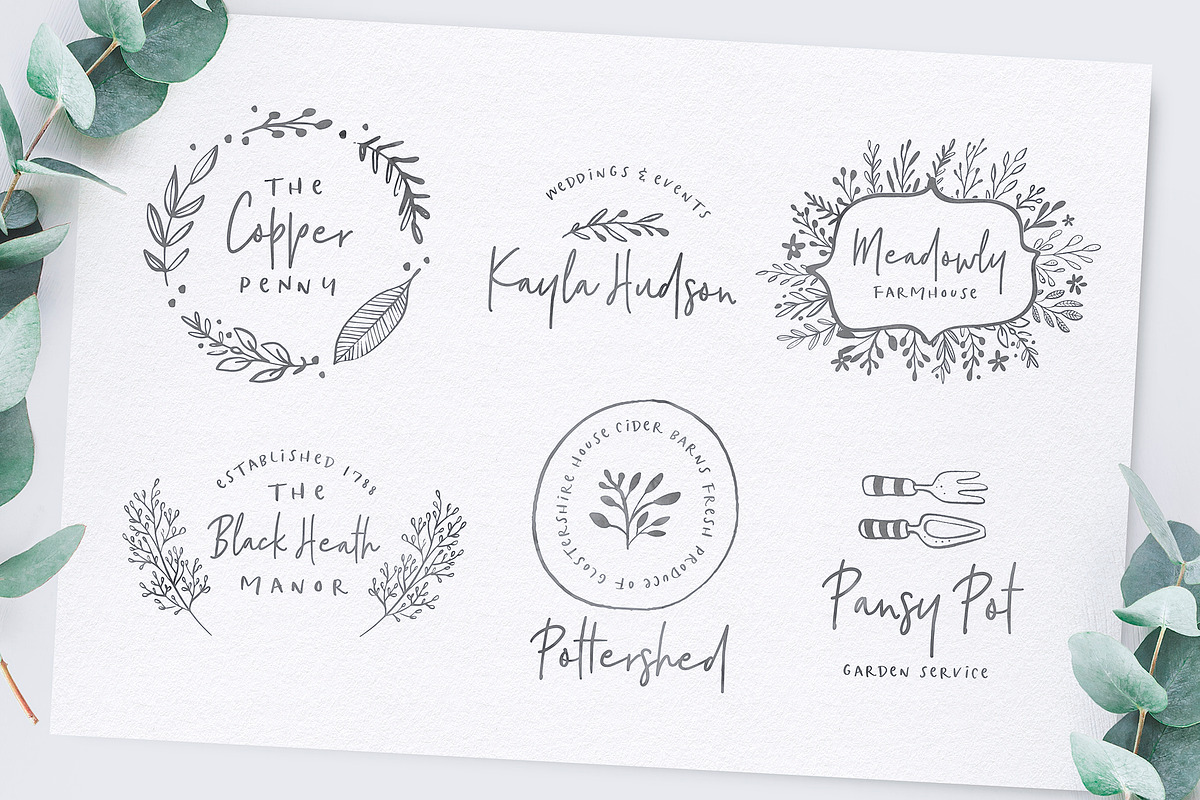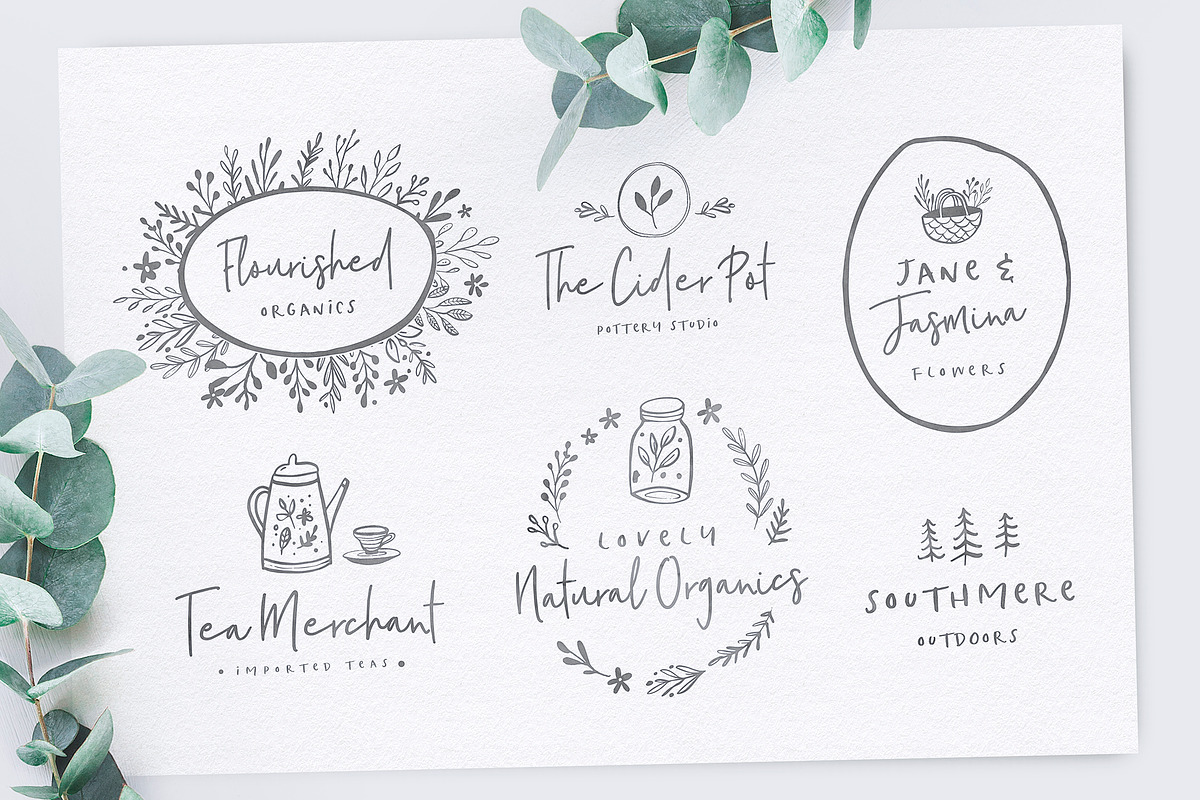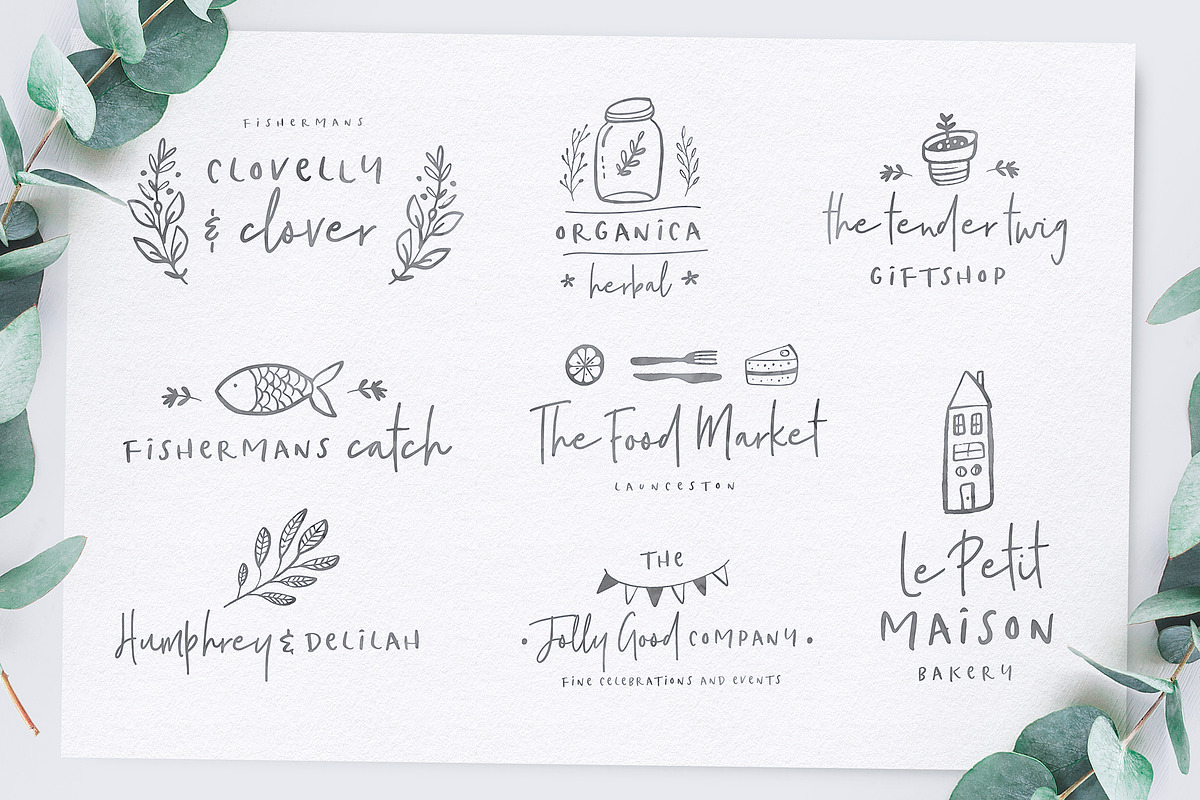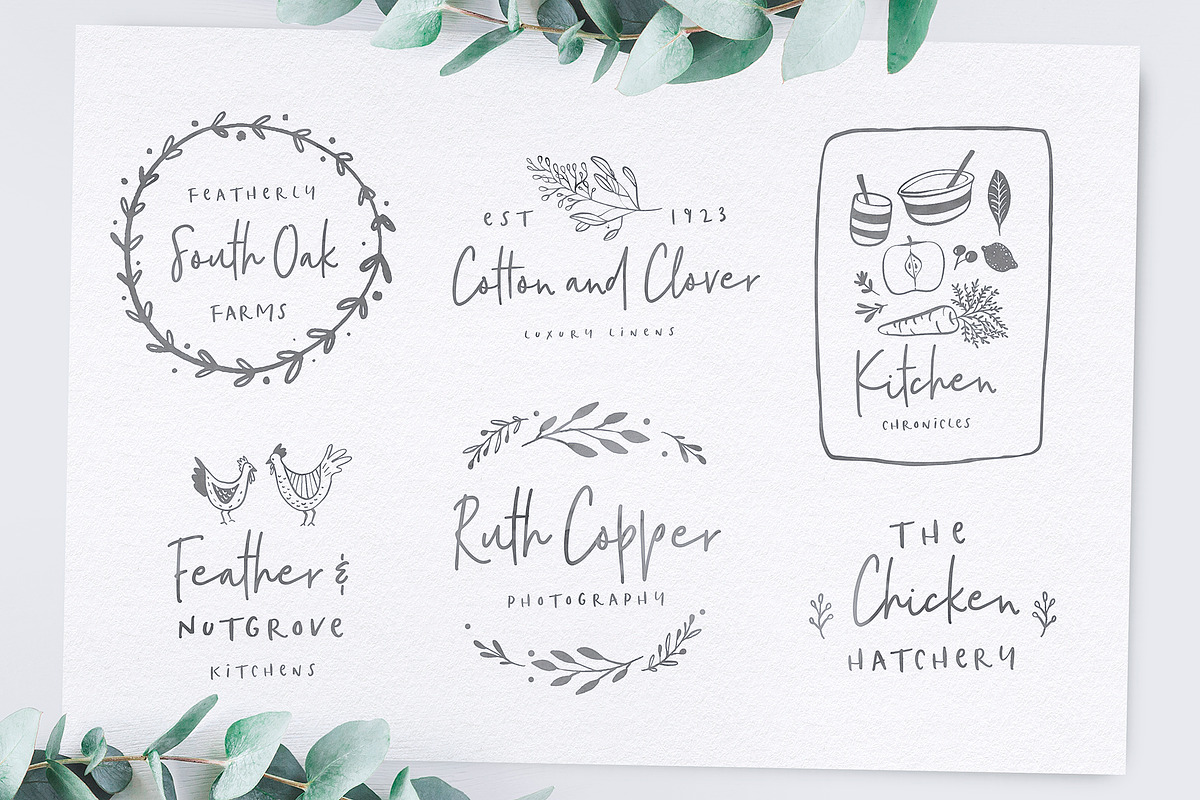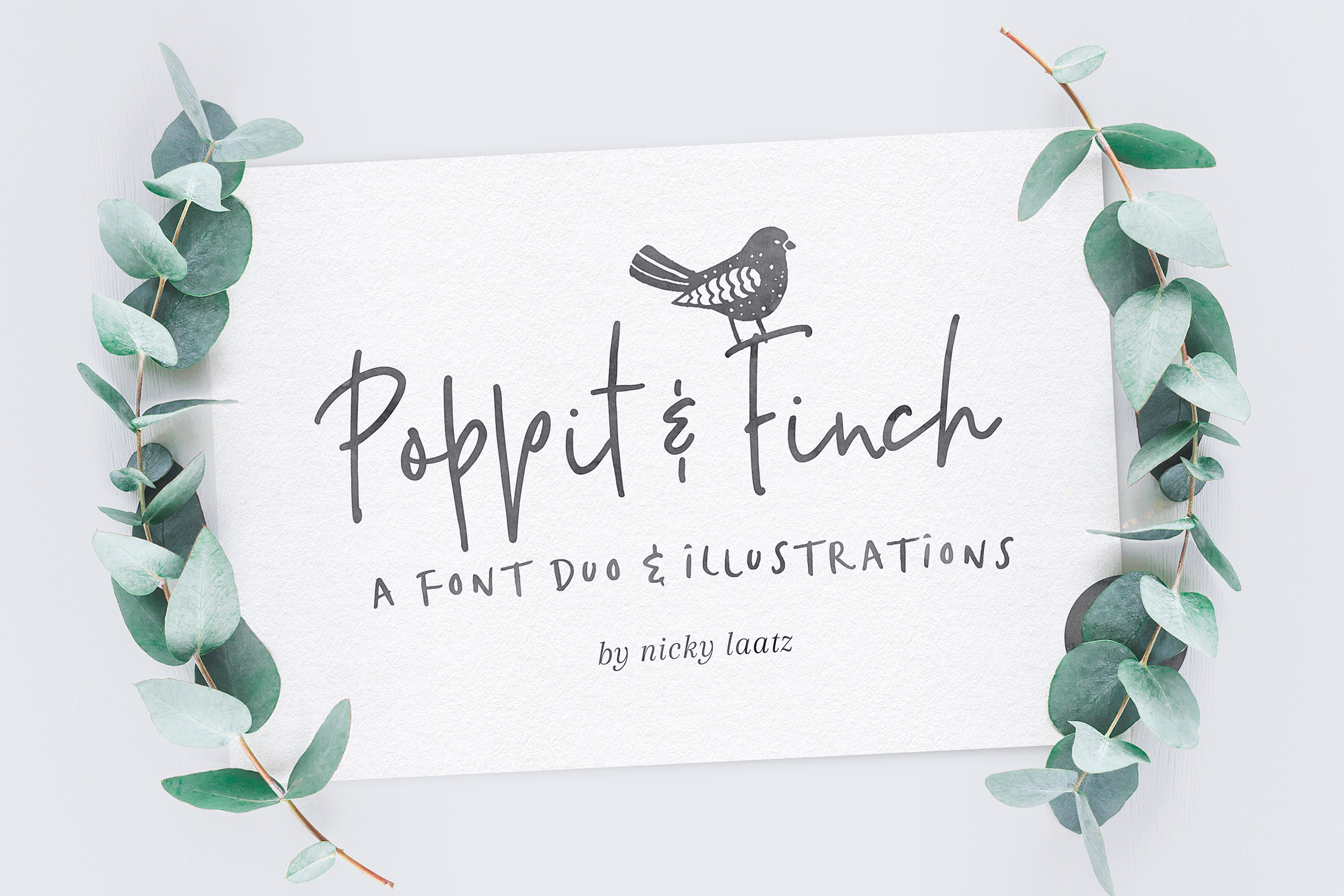
Poppit & Finch Fonts & Illustrations
Having just moved to the beautiful Cornish countryside, surrounded by green rolling hills, adorable hopping bunnies and fluffy baa-ing sheep, I couldn't help but feel inspired to create something that reflects how gorgeous it all is :)
Say hello to Poppit & Finch - A sweet little font duo with oodles of country-inspired illustrated vectors and pre-designed logo templates, easy to use, and all inspired by this little piece of heaven I've found :)
MAKE A MILLION LOGOS
The Poppit and Finch pack also includes 47 Easy-to-edit Premade Logo Templates - to get you inspired for your personal/commercial branding projects. Use them as they are, or mix and match with the huge selection of illustrations to make millions of logo combinations.